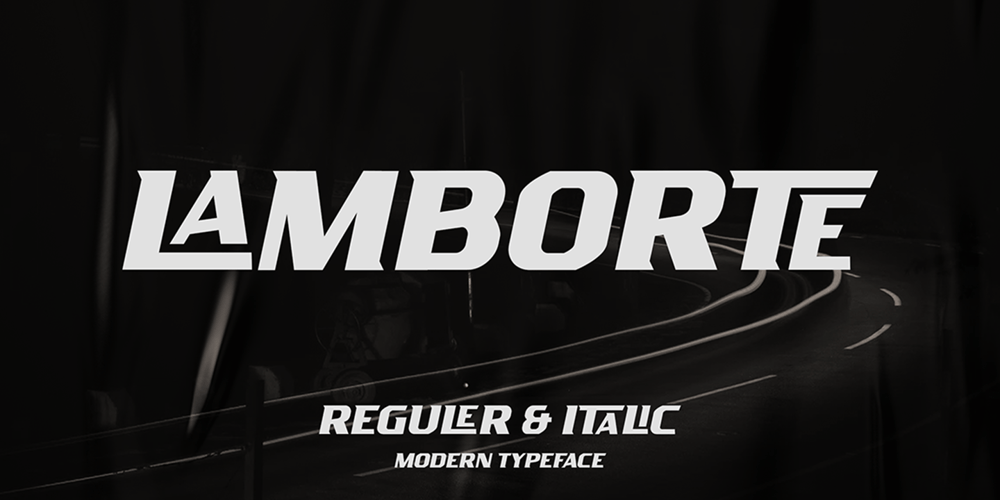
Lamborte Font Family was designed by Sarwo Edhi Prayitno and published by Haksen. Lamborte contains 2 styles and family package options. Lamborte is a strong modern sans serif style with All Caps feel nice balanced. Its wide range of uppercase with ligatures allow versatile design options and works perfectly for headlines, logos, posters, packaging, T-shirts and much more.Recommended to use in Adobe Illustrator or Adobe Photoshop with opentype feature.Ligatures feature is default setting in Adobe Illustrator or Adobe Photoshop in Uppercase character. So when you want not to use the ligatures.Open glyphs panel : In Adobe Photoshop choose tool Window Character and then please klick fi symbol In Adobe Illustrator choose tool Window Type Open Type and then please klick fi symbol If you have questions, just send me a message and I’m glad to help.Have a great day,Haksen